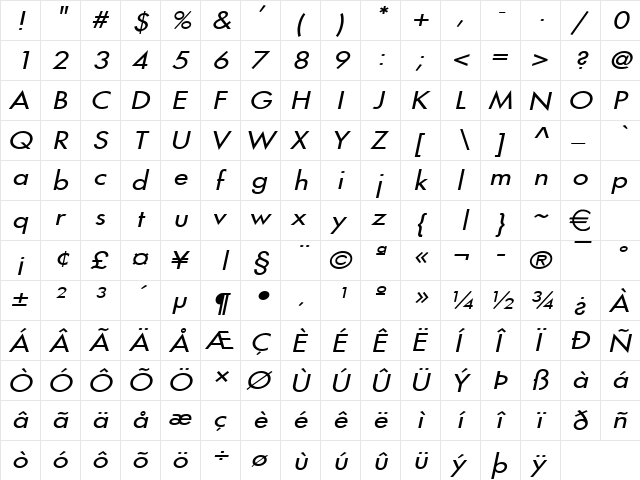
FusiWide Italic
Design Context for FusiWide Typeface
FusiWide offers clean, dependable letterforms without strong stylistic allegiance, making it a practical choice for designers who need flexibility. The slanted form adds forward momentum and visual energy.
Pro Tip: Try FusiWide for annotation and caption copy alongside an upright companion — the contrast in angle creates a dynamic but ordered typographic system.